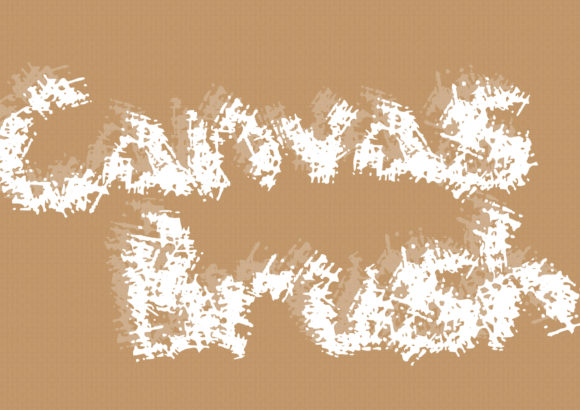
Indulge in the artistry of Canvas Brush Font, a display font that exudes a raw, hand-brushed charm, adding a touch of rugged elegance to your creative endeavors. This captivating font, meticulously crafted by the talented team at GraphicsBam Fonts, invites you to break free from the ordinary and embrace a world of visual intrigue.
With its bold, expressive strokes and organic imperfections, Canvas Brush Font breathes life into your designs, evoking a sense of authenticity and connection. Imagine your words dancing across the page, infused with a vitality that captivates and resonates with your audience. Whether you're crafting logos, posters, branding materials, or social media graphics, this font is your passport to creating designs that leave a lasting impression.
Canvas Brush Font's versatility knows no bounds, seamlessly adapting to a myriad of projects. Its bold presence commands attention in headlines, while its playful nature lends itself perfectly to quirky illustrations and eye-catching social media posts. Let your creativity run wild as you explore the limitless possibilities this font offers.
Unleash your inner artist and embrace the allure of Canvas Brush Font. Its unique, hand-brushed aesthetic adds a layer of depth and texture to your designs, evoking a sense of nostalgia and warmth. Whether you're a seasoned designer seeking to elevate your work or a budding enthusiast yearning to leave your mark, this font is your gateway to creating designs that captivate and inspire.
Dive into the world of Canvas Brush Font and experience the transformative power of exceptional typography. Let your designs flourish with a font that speaks volumes, communicating your message with a touch of artistry and finesse. Embrace the beauty of imperfection and allow your creativity to soar to new heights.